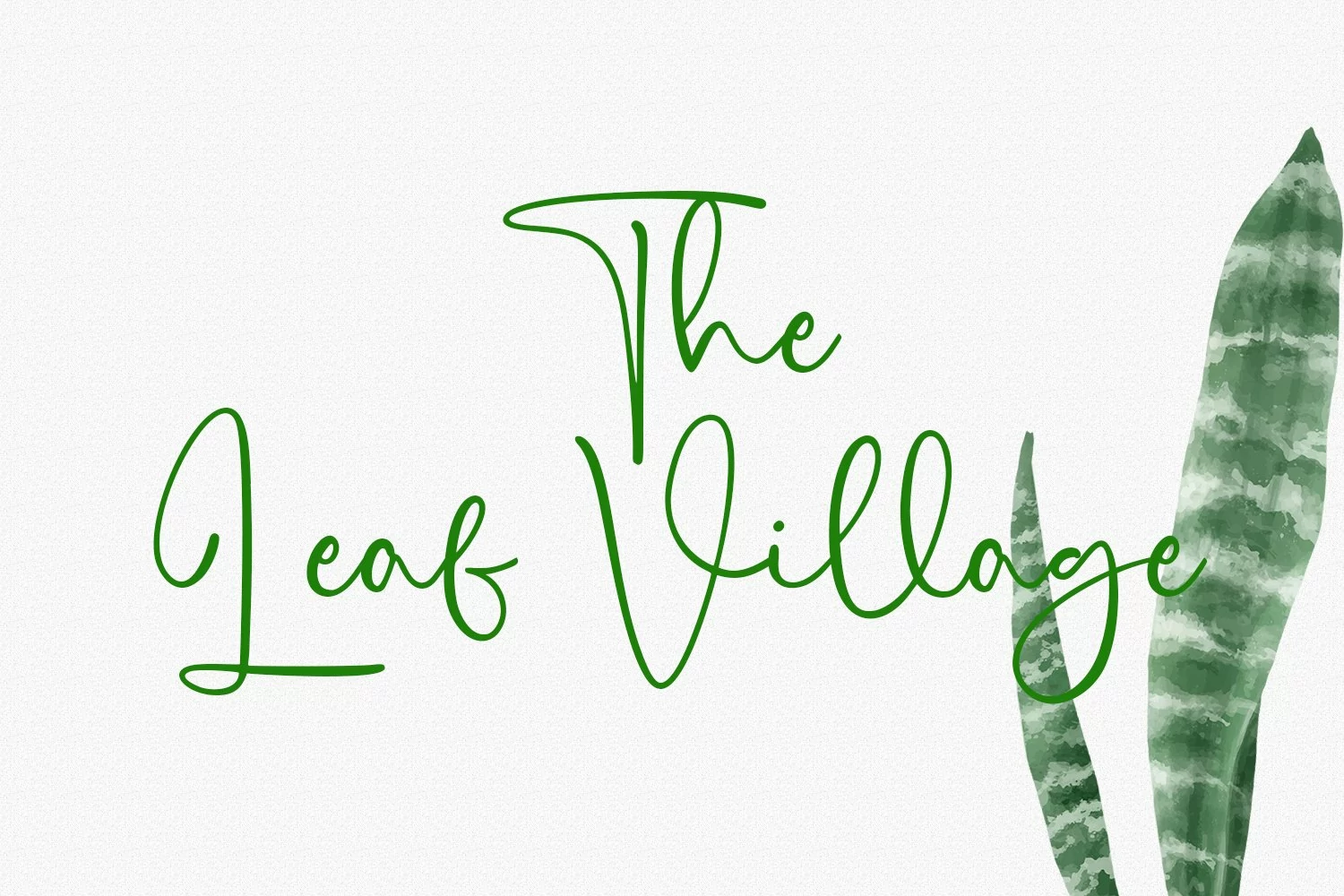
"Citrus Cycle" is a unique script font. With upright light stroke, fun character with a bit of ligatures. To give you an extra creative work. "Citrus Cycle" font support multilingual more than 100+ language. This font is good for logo design, Social media, Movie Titles, Books Titles, a short text even a long text letter and good for your secondary text font with sans or serif. Make a stunning work with "Citrus Cycle" font.
Citrus Cycle